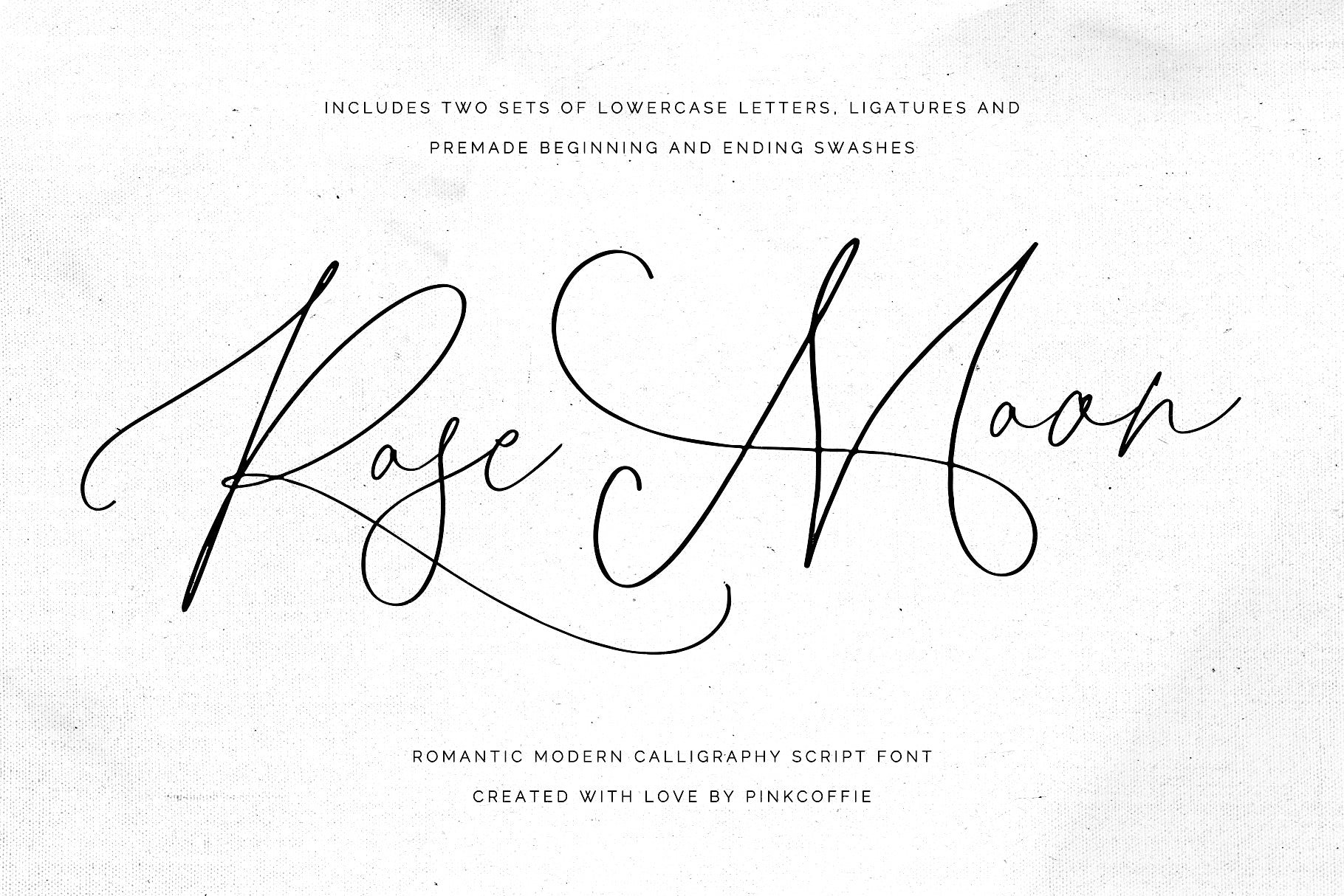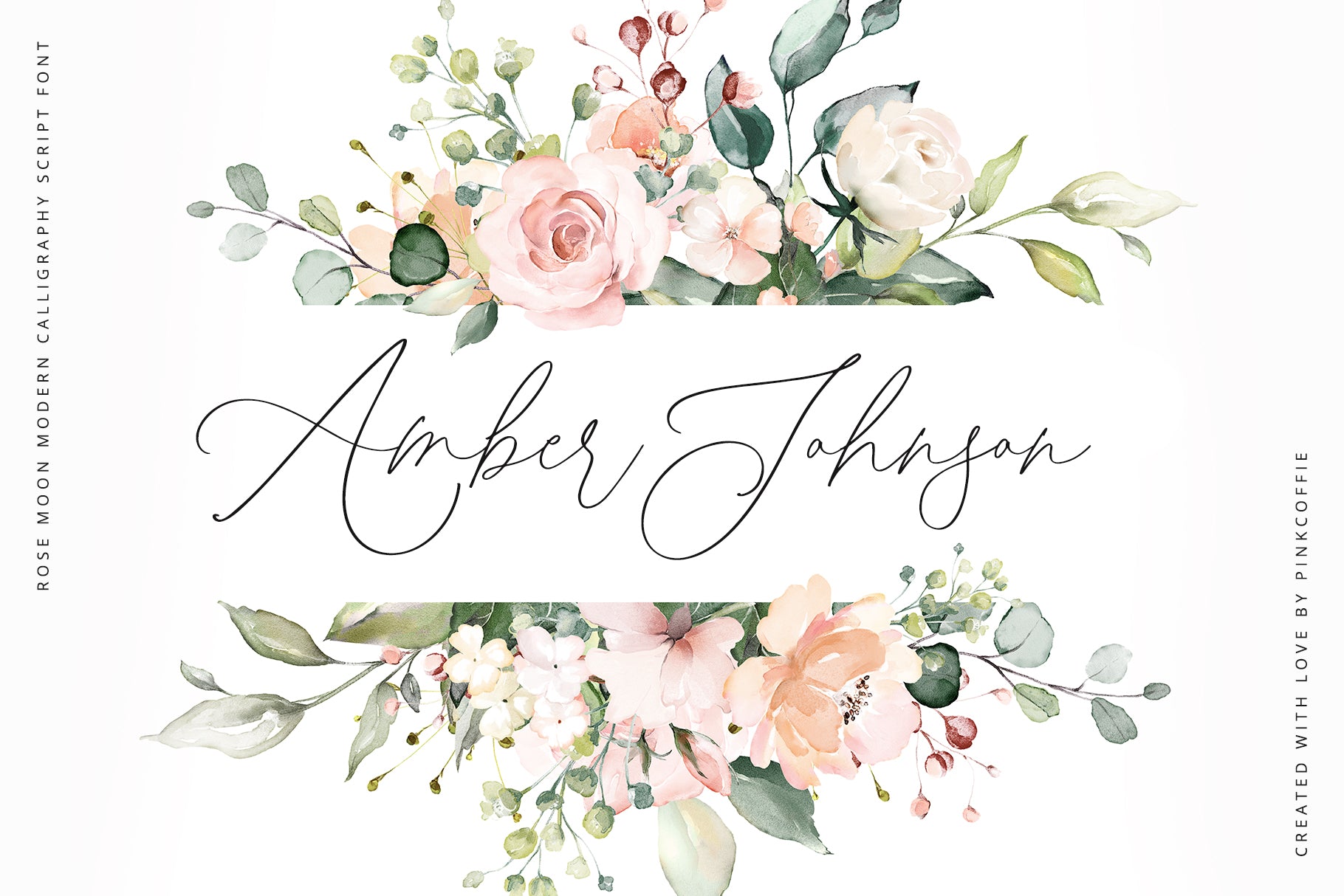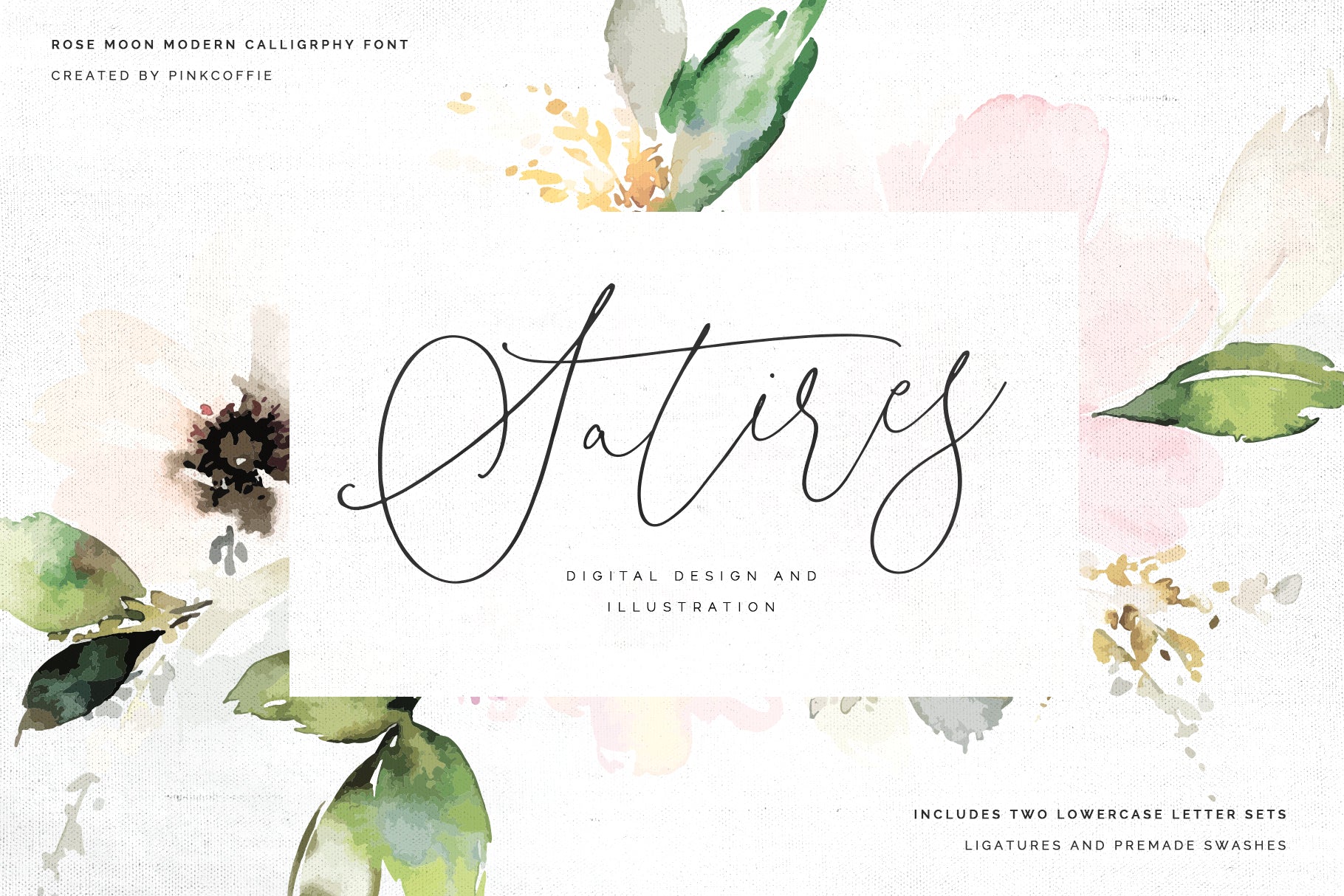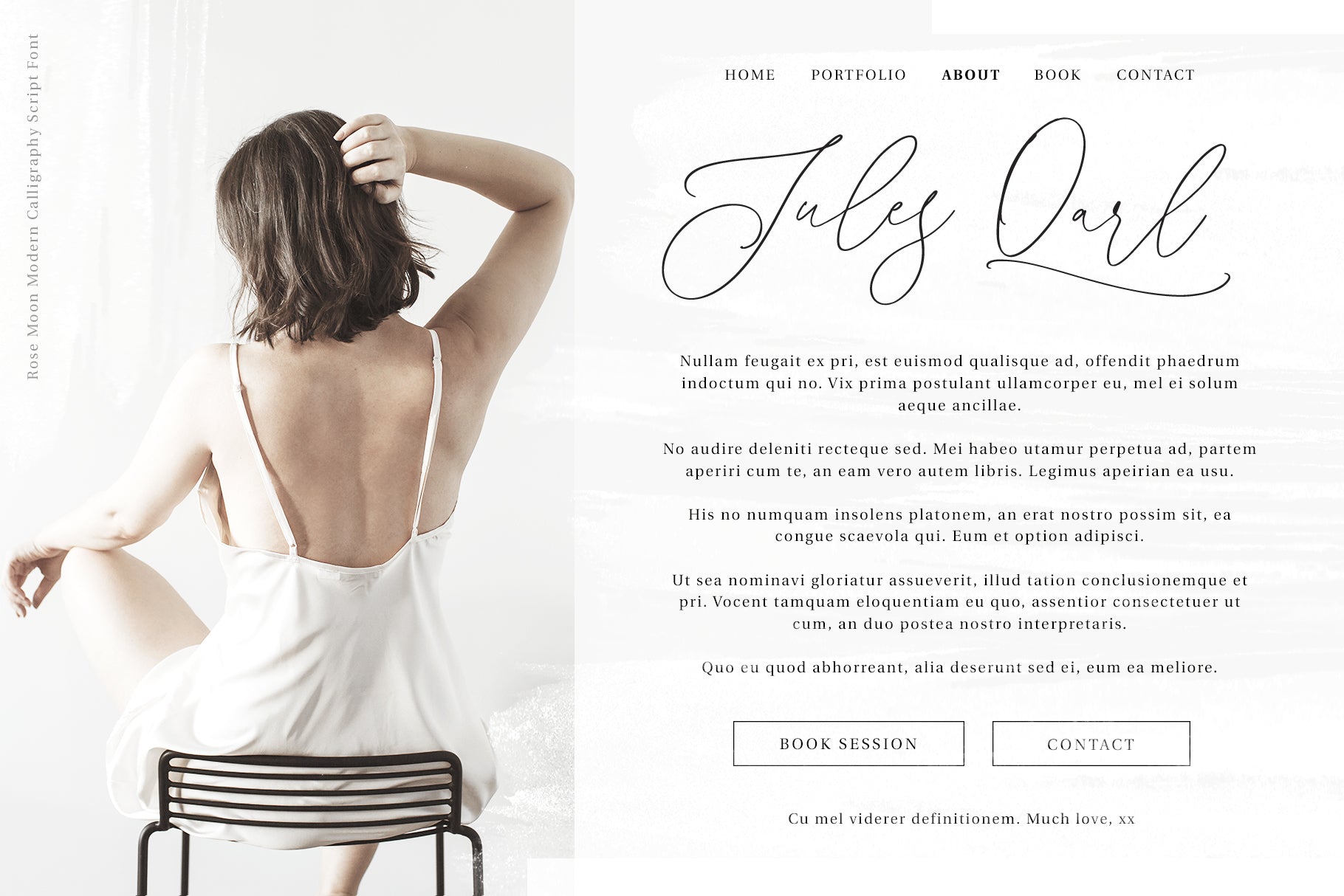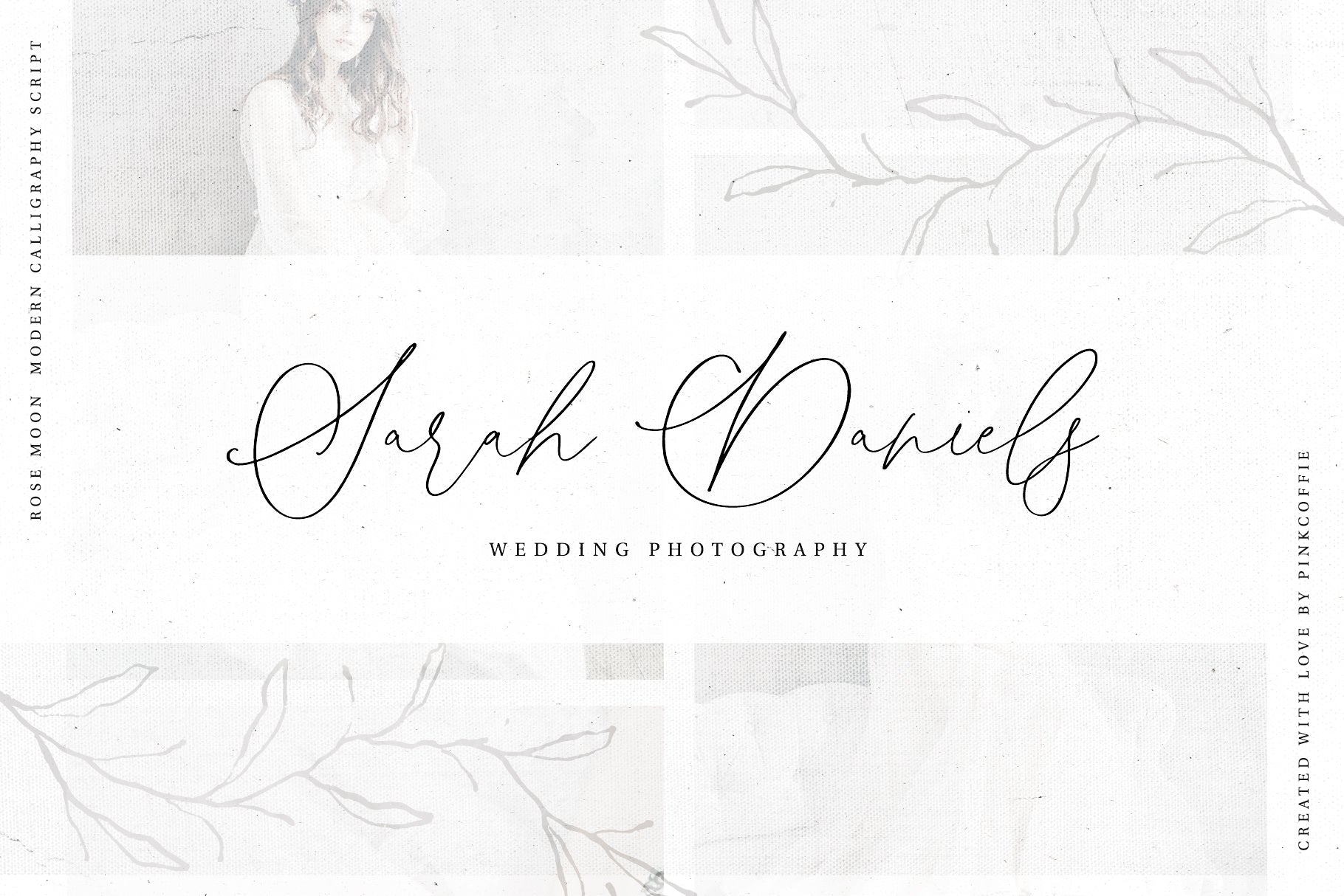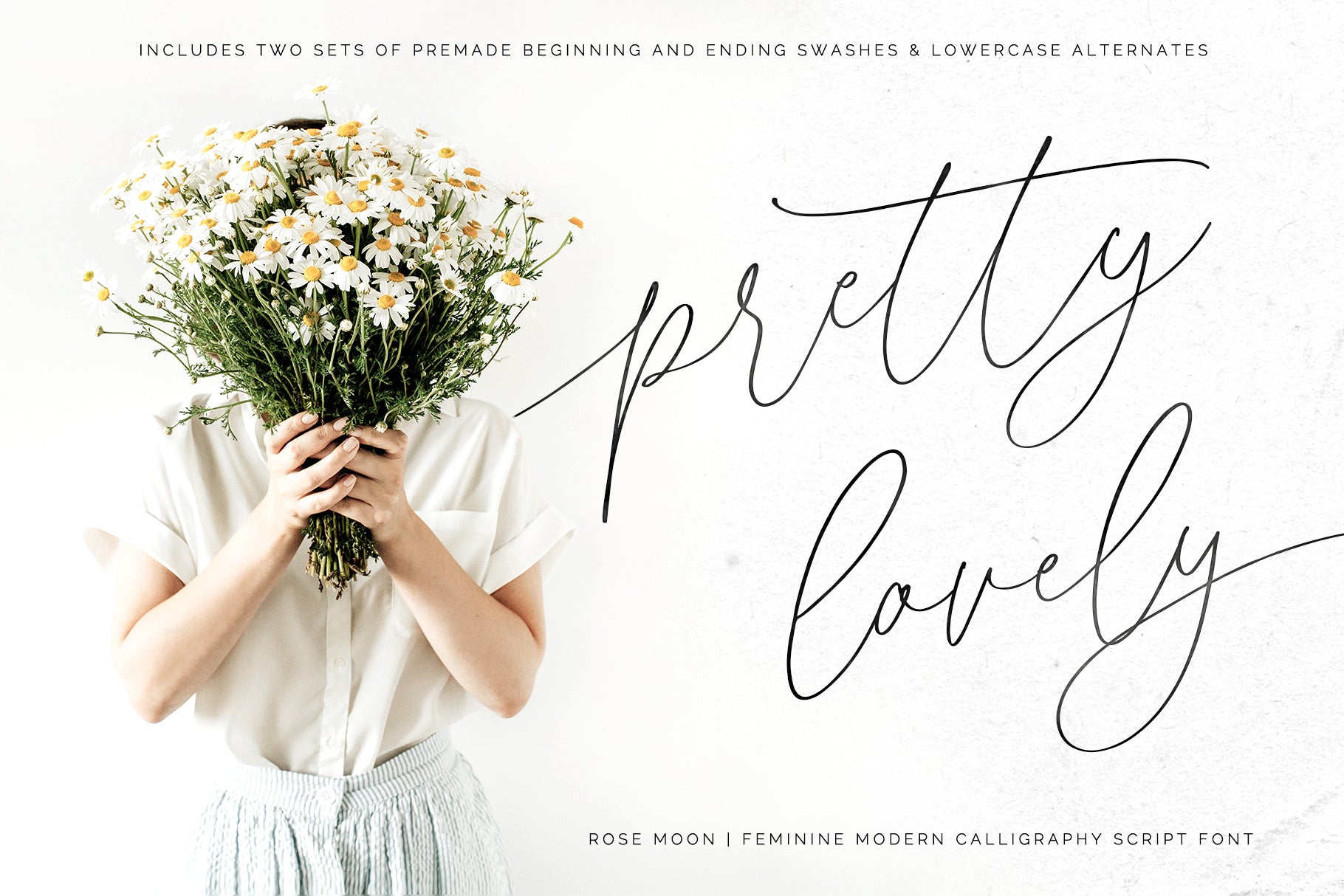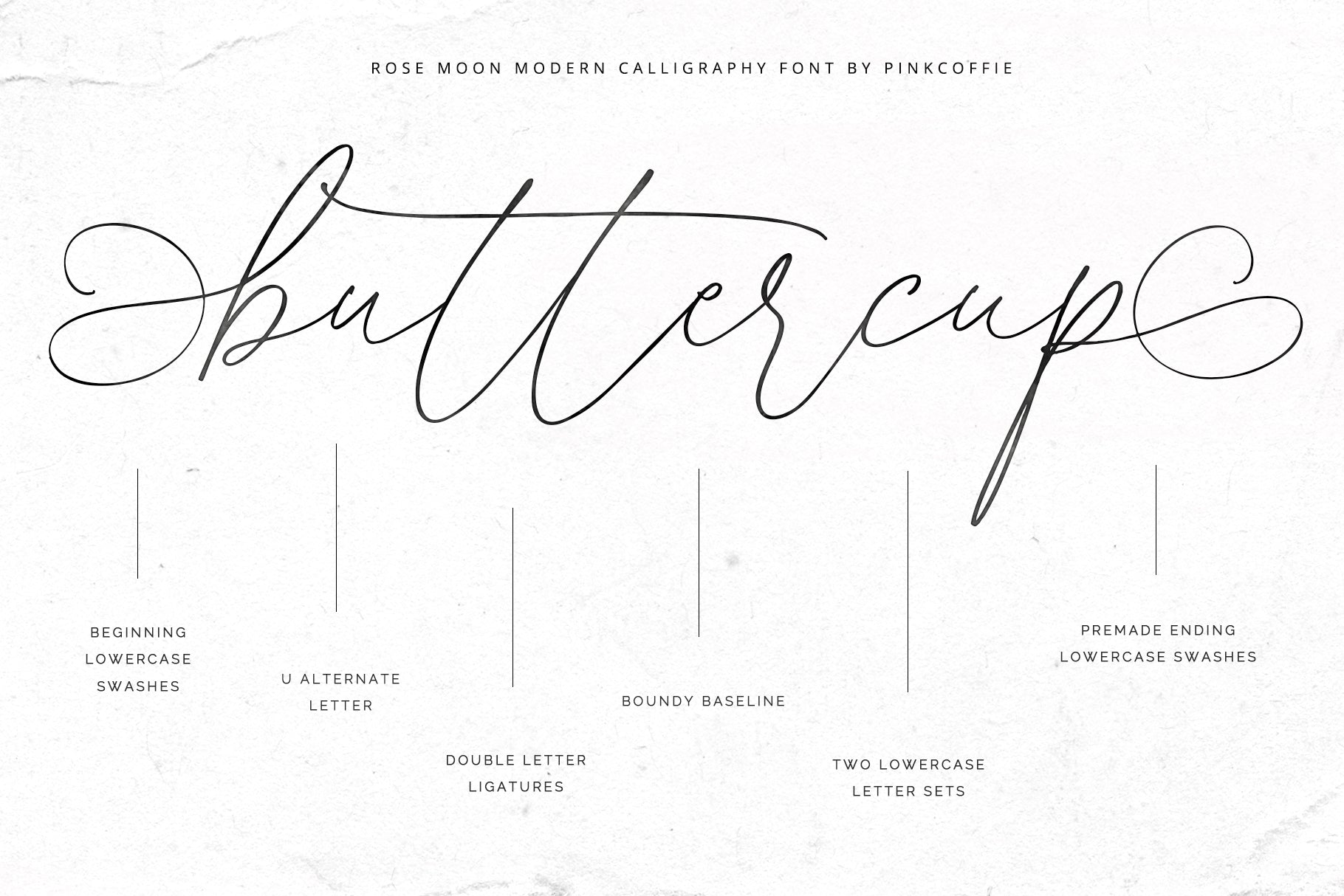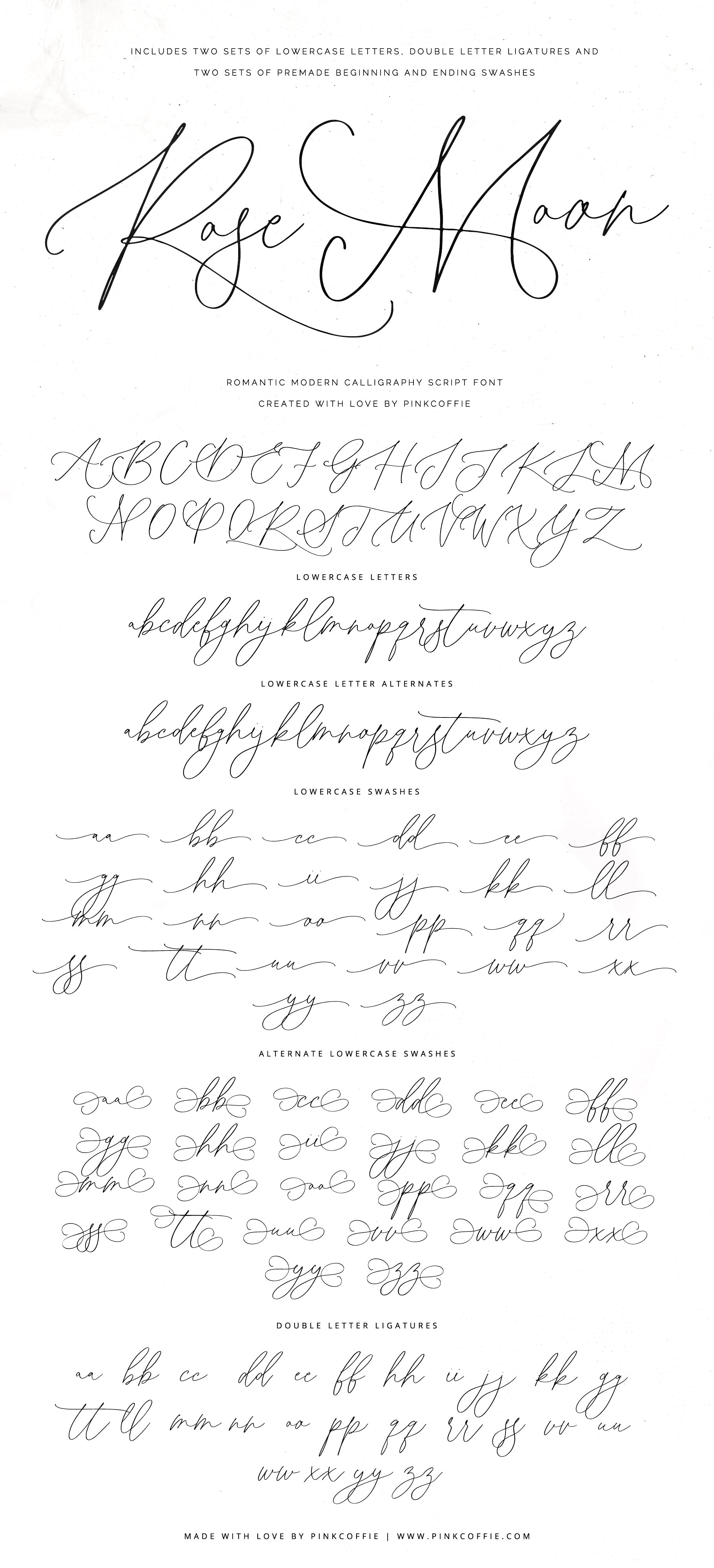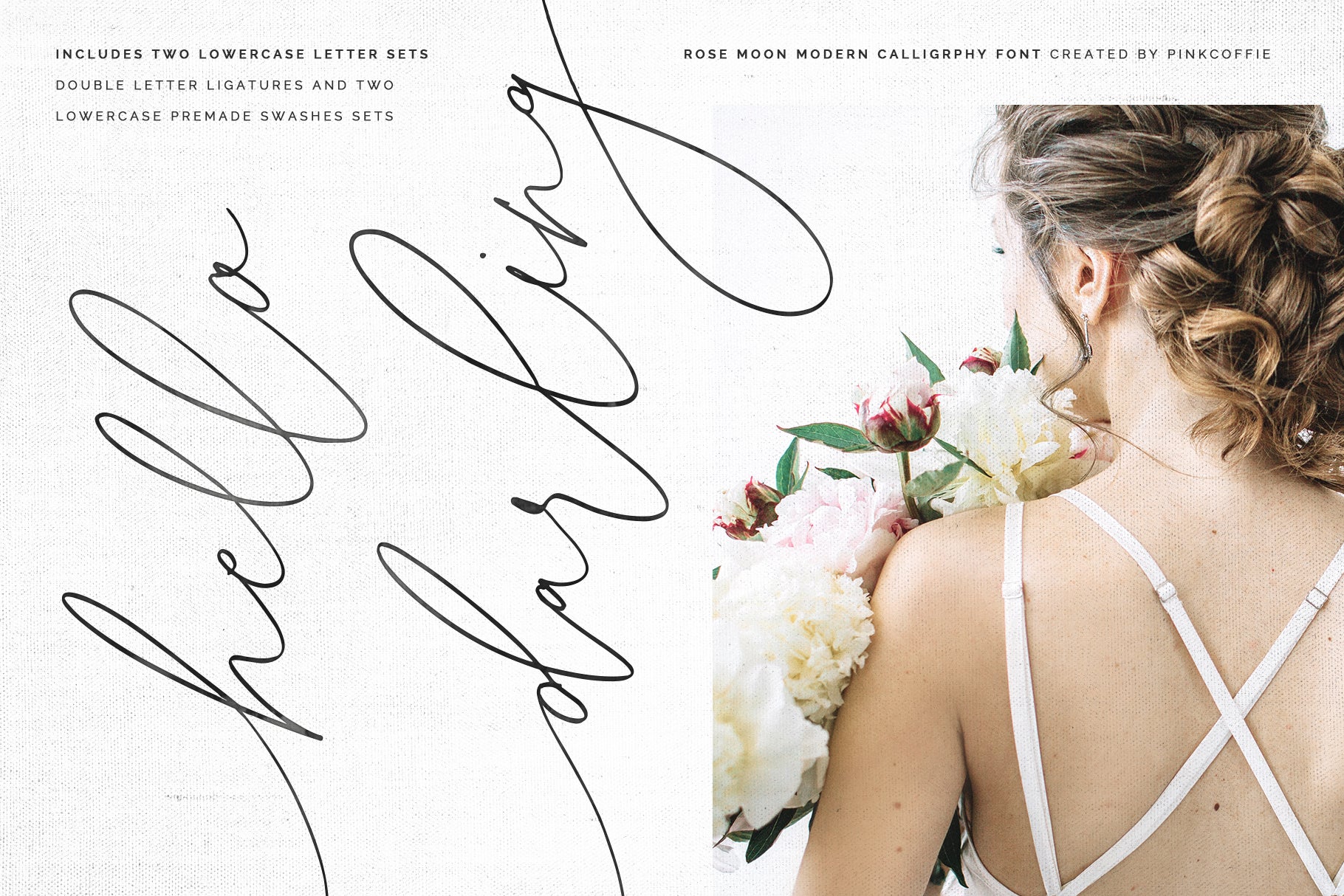
Say hello to Rose Moon, a feminine modern calligraphy script font packed with two lowercase letter sets, double-letter ligatures, and two sets of premade beginning and ending swashes to mix and match.
This little script font can be used for various projects including, but not limited to wedding stationery, feminine branding, logos, prints, and packaging.